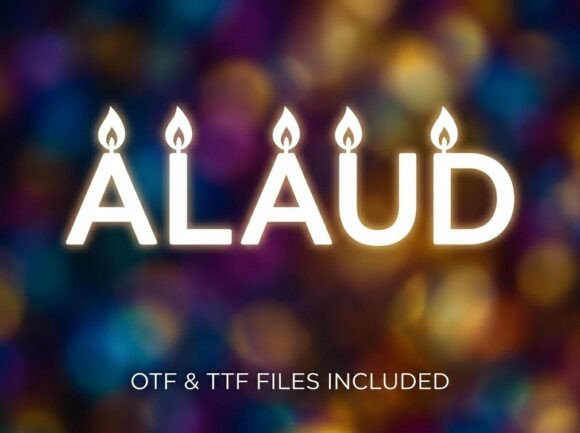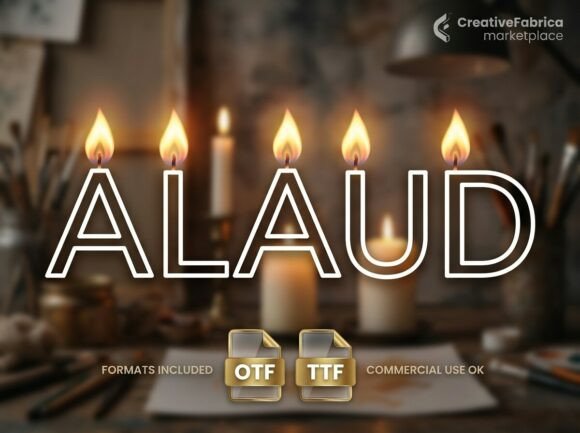
Introducing Alaud Font: A Stunning Decorative Display Font
Are you tired of using the same old fonts for your designs? Look no further than Alaud Font, a unique and artistic display font that’s sure to turn heads. With its strong visual personality and decorative elements, this font is perfect for creators who want to add a touch of elegance and sophistication to their work.
What is Alaud Font?
Alaud Font is a decorative display font designed to be the center of attention. Its unique artistic elements and strong visual personality make it perfect for bold headlines, artistic logos, and creative packaging. This font is versatile enough to be used in a variety of design projects, from branding and advertising to packaging and editorial design.
Key Features of Alaud Font
- Unique Artistic Elements: Alaud Font features unique artistic elements that set it apart from other fonts. Each letter is carefully crafted to be a work of art, making it perfect for high-impact headlines, logos, and decorative initials.
- Strong Visual Personality: This font has a strong visual personality that’s sure to grab attention. Its decorative elements and artistic flair make it perfect for designers who want to add a touch of elegance and sophistication to their work.
- Versatile: Alaud Font is versatile enough to be used in a variety of design projects, from bold headlines and artistic logos to creative packaging and editorial design.
- Professional and Polished Finish: Despite its decorative nature, Alaud Font maintains a professional and polished finish, making it perfect for designers who want to create high-quality designs.
IMPORTANT NOTE BEFORE PURCHASE: Alaud Font is an ALL-CAPS (Uppercase Only) display typeface. It does not include lowercase letters. It is specifically designed for high-impact headlines, logos, and decorative initials where every letter is a work of art.
Why Choose Alaud Font?
There are many reasons why designers and crafters should choose Alaud Font for their design projects. Here are just a few:
- Stand Out from the Crowd: With Alaud Font, you can create designs that stand out from the crowd. Its unique artistic elements and strong visual personality make it perfect for designers who want to add a touch of elegance and sophistication to their work.
- Perfect for Logos and Branding: Alaud Font is perfect for logos and branding projects. Its decorative elements and artistic flair make it perfect for creating high-quality logos and branding materials.
Tips for Using Alaud Font
Here are a few tips for using Alaud Font in your design projects:
- Use it for Headlines and Titles: Alaud Font is perfect for headlines and titles. Use it to add a touch of elegance and sophistication to your designs.
- Experiment with Different Colors: Alaud Font looks great in a variety of colors. Experiment with different colors to find the one that works best for your design.
- Pair it with Other Fonts: Alaud Font can be paired with other fonts to create a unique and interesting design. Experiment with different font combinations to find the one that works best for your project.
Alaud Font is a stunning decorative display font that’s perfect for designers and crafters who want to add a touch of elegance and sophistication to their work. With its unique artistic elements and strong visual personality, this font is sure to turn heads. Whether you’re working on a branding project, creating a logo, or designing packaging, Alaud Font is a great choice.